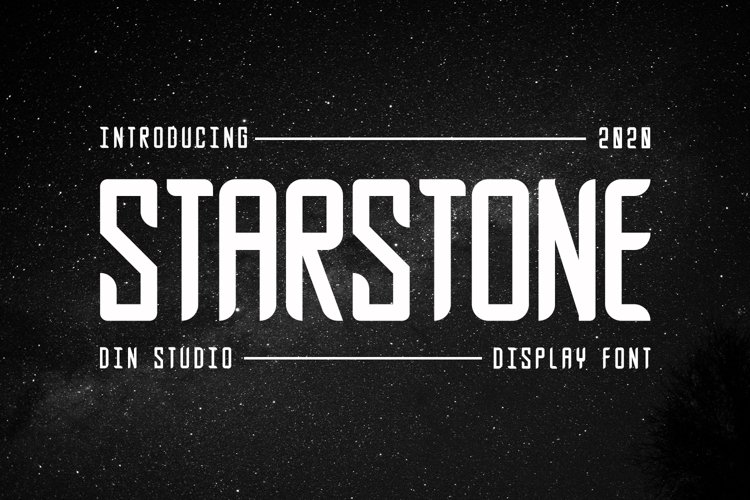
If you’re looking and imagining for a modern font to interest your audiences or customers then we’ve got the font for you!
Introducing Starstone - A Display Font
This typeface with modern style looks very interesting for loads of different projects and promotions. It is perfect to be used on any projects likes website, for your social media branding, pinterest banners, printed products, and more, especially that needs outers space touch.